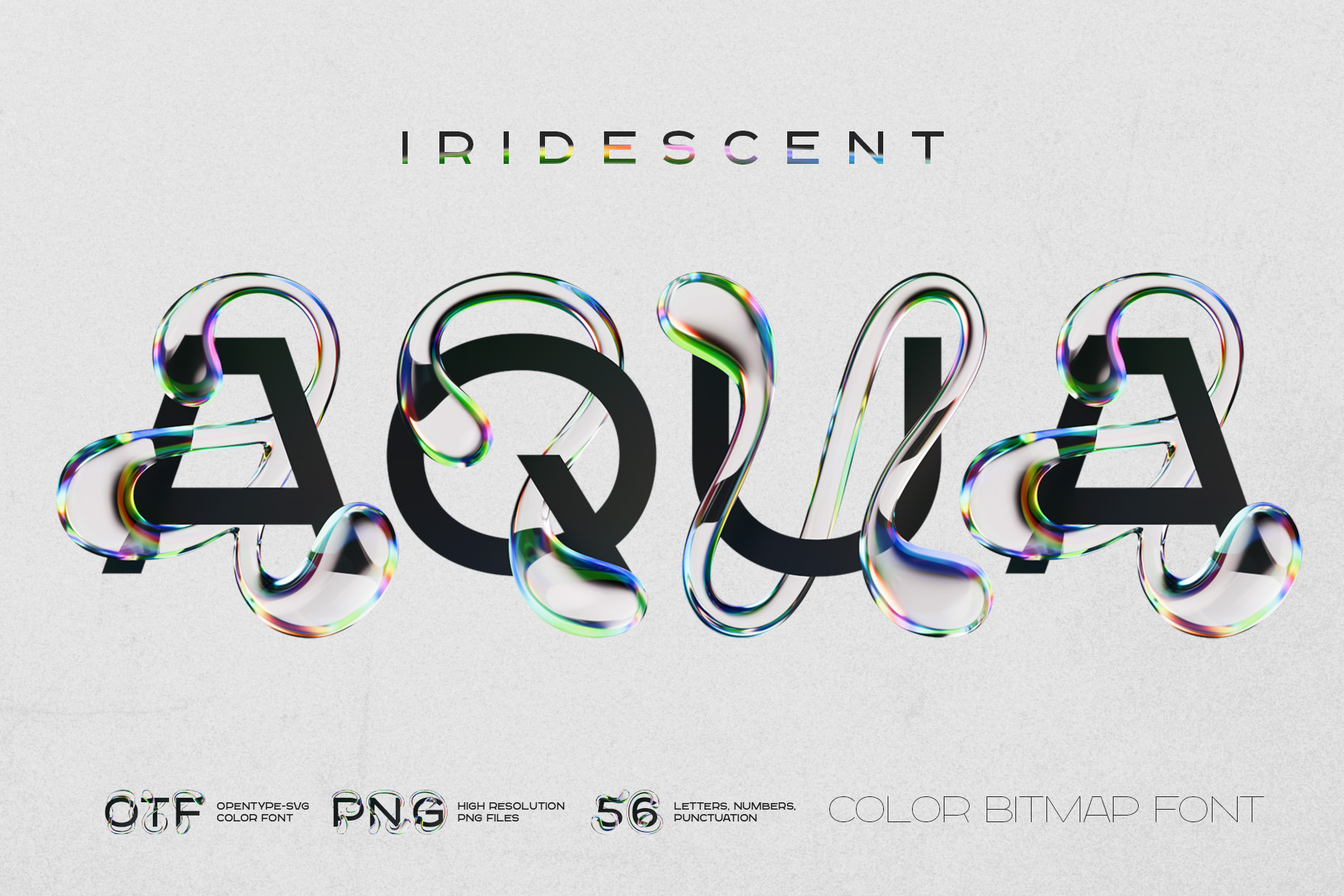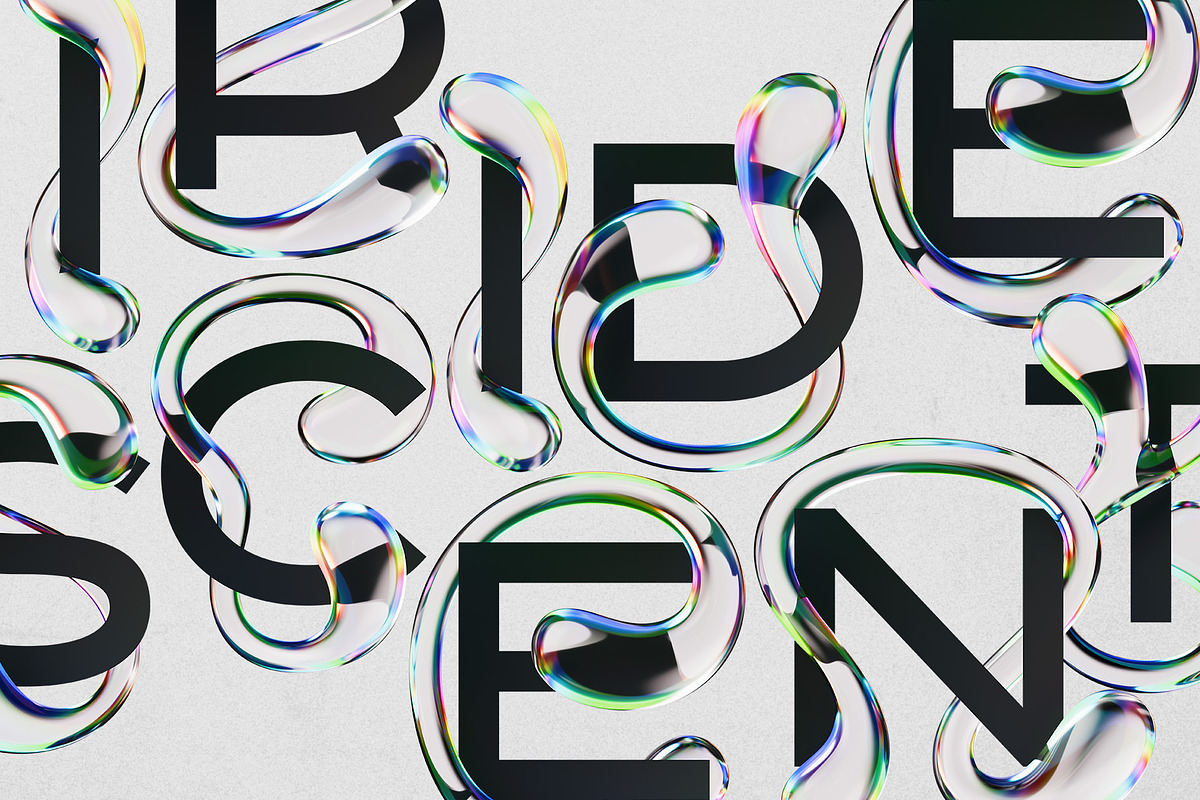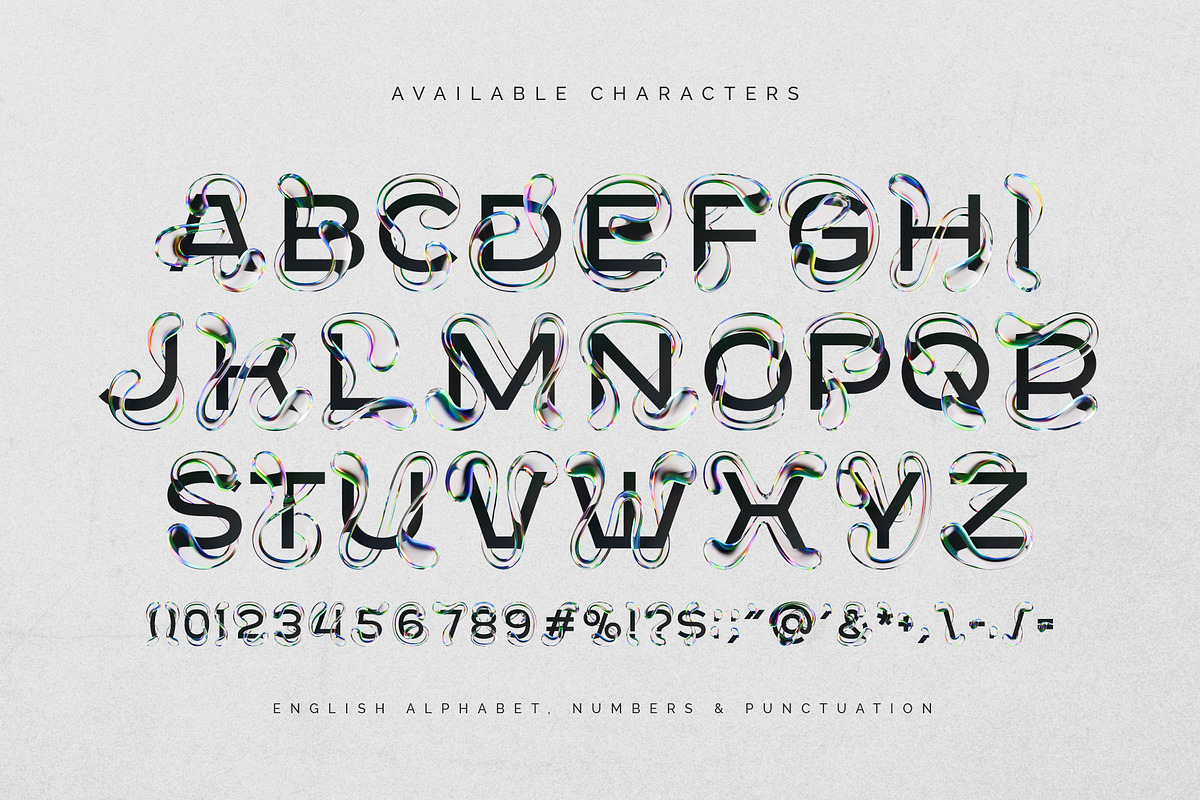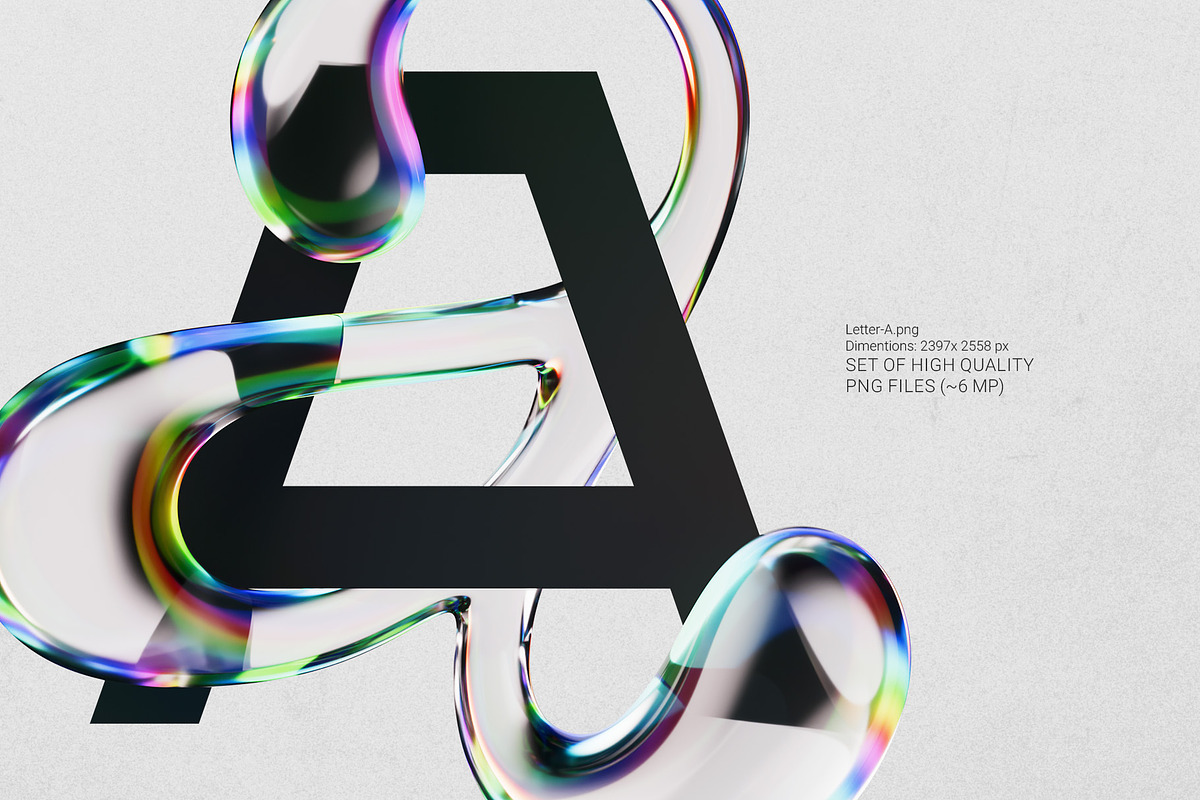
Iridescent Aqua - Color Bitmap Font
Introducing Iridescent Aqua, a colorful, creative font set. This typeface has an original twisted characters. A solid sans-serif base intertwines with smooth, groovy shapes. Uppercase and lowercase letters are creatively mixed in one symbol.
Iridescent Aqua is a color bitmap OpenType-SVG font, usable just like any standard OTF font. Additionally, the set includes high-resolution PNG files with transparent background (average resolution is 6 megapixels).
Consider that the font supports only the English language and basic punctuation. Be sure to review the included screenshot for a complete list of available characters.